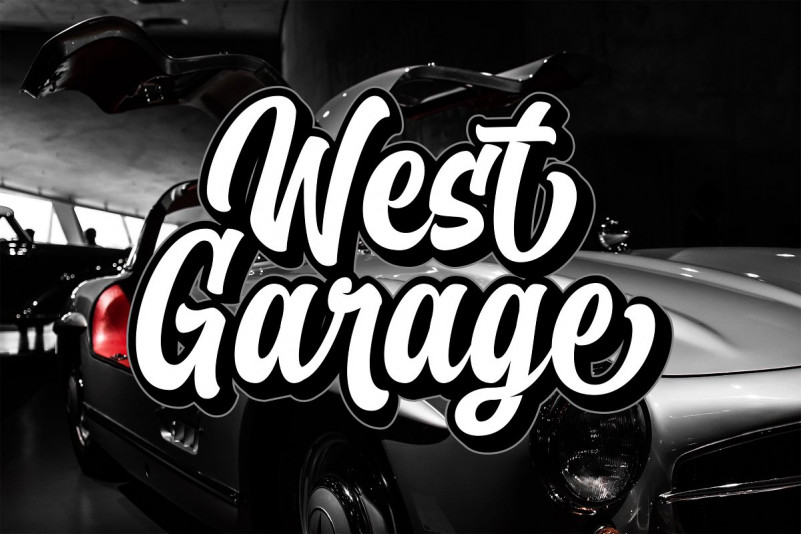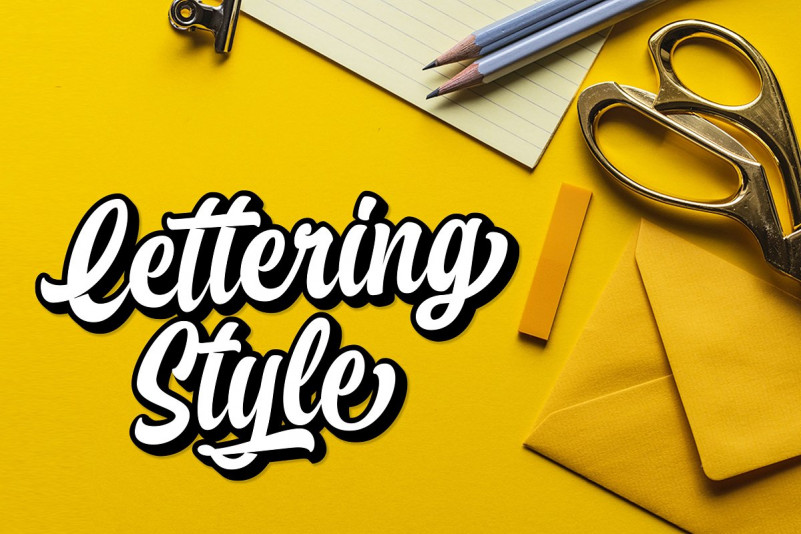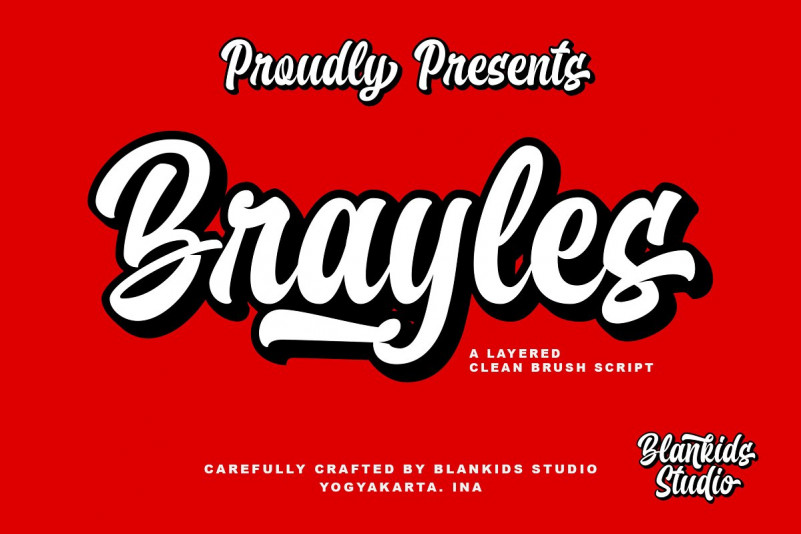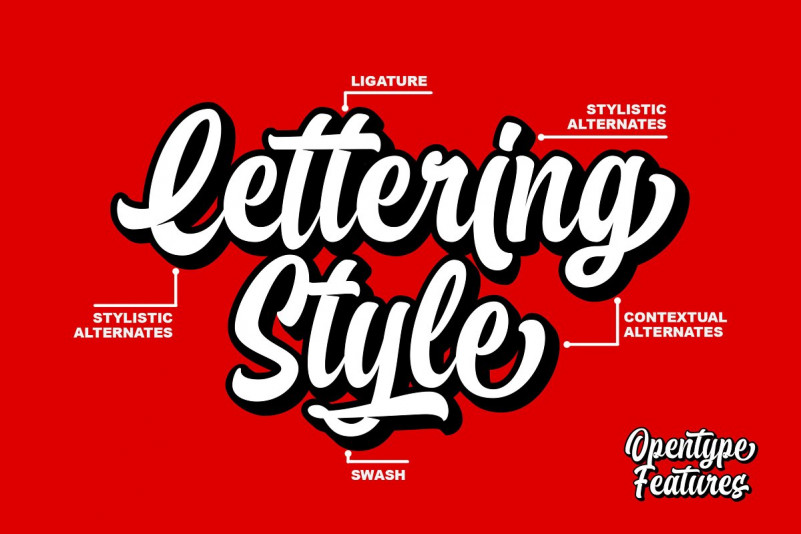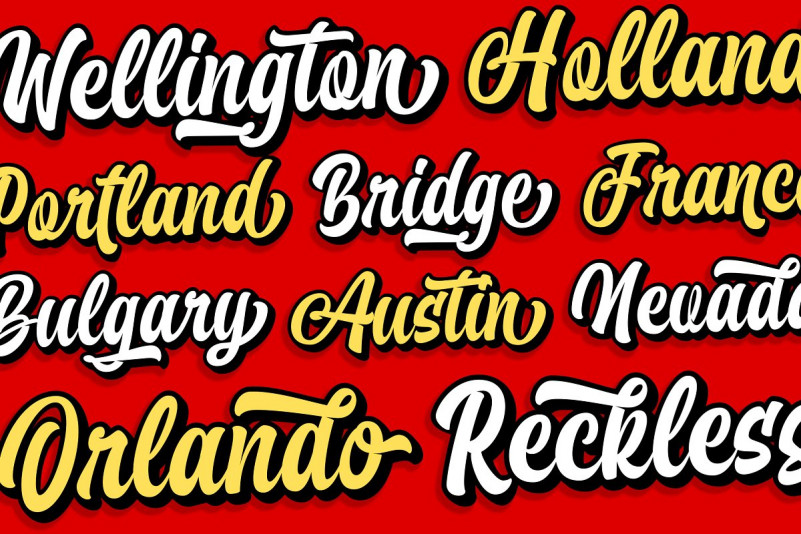
Brayles Bold Script Font
A layered clean brush script font, a modern script typace with fast brush strokes and signature styles, making this font look unique and elegant. Introducing Brayles Font!  It is design and shared by Blankids Studio. Brayles inspired by handlettering, bold script logotype and kids font. Brayles came with open type features such stylistic alternates, contextual alternates, swash, ligatures good for logotype, poster, badge, book cover, tshirt design, packaging and any more.